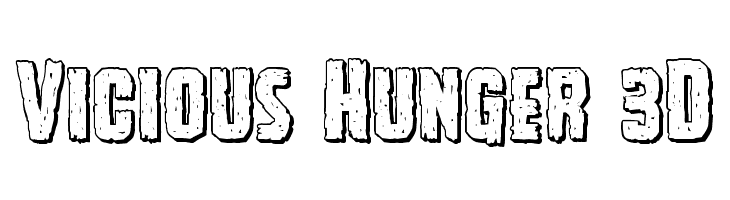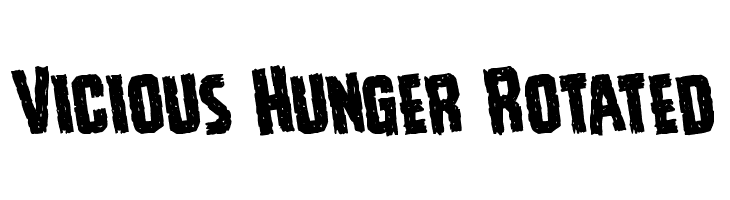
A bold, distressed font with a rugged, textured appearance.
A bold, textured 3D italic font with a rugged, distressed style.
A bold, distressed, and condensed font with a rugged, textured appearance.
A bold, jagged, and condensed italic font with a gritty, distressed texture.
A bold, distressed font with a rugged, gritty appearance.
A bold, distressed, and italic typeface with a grunge aesthetic.
A bold, italicized font with a distressed, grungy texture for an edgy look.
A bold, distressed font with a rugged, textured appearance and a dynamic slant.
A bold, distressed, and italicized font with a rugged, edgy style.
A bold, distressed font with a gritty, urban style.